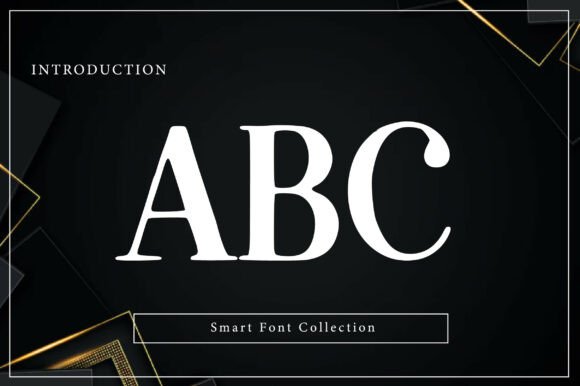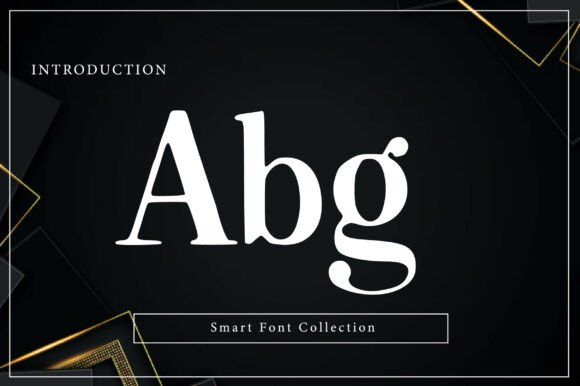
Introducing Aurelitha Font: Elevate Your Designs with Luxury and Elegance
In the world of typography, a font can make or break a design. For designers and crafters seeking to add a touch of sophistication and luxury to their projects, Aurelitha Font is an exceptional choice. This stunning serif display font is crafted with refined curves, classic proportions, and a premium editorial feel, making it perfect for high-end typography projects.
The Essence of Aurelitha Font
Aurelitha Font boasts elegant letterforms with sophisticated contrast and stylish serifs. Its design is deeply rooted in traditional typography, yet it carries a modern twist that makes it versatile for various applications. From luxury branding and fashion logos to magazine headlines, packaging, wedding invitations, and beauty labels, Aurelitha brings a timeless, classy look to any design.
Key Features of Aurelitha Font
- Refined Curves and Classic Proportions: Aurelitha’s design is characterized by its smooth, flowing curves and adherence to classic typographic proportions. This ensures that the font exudes elegance and sophistication.
- Sophisticated Contrast: The font features high contrast between its thick and thin strokes, adding depth and a dynamic feel to the text.
- Stylish Serifs: Aurelitha’s serifs are carefully designed to add a touch of luxury and refinement to the font, making it stand out in any design.
- Premium Editorial Feel: With its elegant and refined design, Aurelitha is perfect for editorial projects that require a high-end feel.
Applications of Aurelitha Font
Aurelitha’s versatility makes it suitable for a wide range of design projects. Here are some of the ideal applications for this luxurious font:
- Luxury Branding: Establish your brand’s high-end identity with Aurelitha’s sophisticated and elegant look.
- Fashion Logos: Add a touch of glamour and style to your fashion brand’s logo with this stunning font.
- Magazine Headlines: Make your magazine headlines stand out with Aurelitha’s bold and elegant design.
- Packaging: Elevate your product packaging with a font that exudes luxury and sophistication.
- Wedding Invitations: Add a touch of elegance and romance to your wedding invitations with Aurelitha.
- Beauty Labels: Give your beauty brand a high-end look with this luxurious font.
Why Choose Aurelitha Font?
In a market flooded with fonts, Aurelitha stands out for its unique blend of elegance, sophistication, and versatility. Here are some reasons why designers and crafters should consider Aurelitha for their projects:
- Timeless Design: Aurelitha’s classic design ensures that your projects will remain stylish and relevant for years to come.
- Elegant and Professional: The font’s elegant look makes it perfect for projects that require a professional and high-end feel.
- Versatility: Aurelitha can be used for a wide range of projects, from branding and advertising to editorial and packaging design.
Aurelitha Font is a luxurious and elegant serif display font that can elevate any design project. With its refined curves, classic proportions, and premium editorial feel, it’s perfect for designers and crafters seeking to add a touch of sophistication and luxury to their work. Whether you’re working on luxury branding, fashion logos, magazine headlines, or high-end typography projects, Aurelitha is an exceptional choice.
Discover the elegance and versatility of Aurelitha Font and take your designs to the next level.